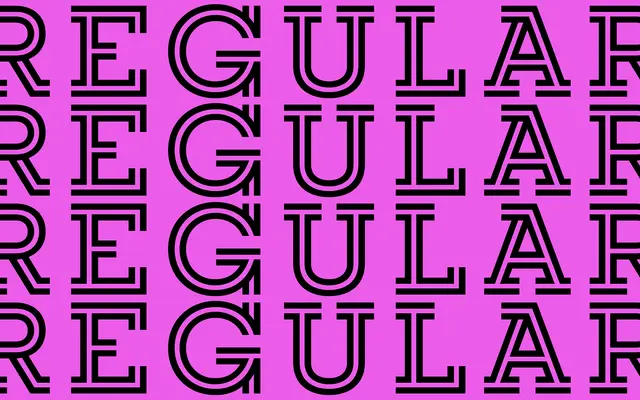
Regular Inline
A2-Type · 2019
A single-weight inline display slab, drawn originally as a custom brand typeface for The Athletic sports news site in 2019.
Cut from the same cloth as A2-Type's Regular Slab, this inline variant strips the family back to one Bold weight and adds an inline stroke treatment suited to large headline settings. It was created as a bespoke brand typeface for The Athletic, art directed by Gretel Design and Strategy Studio in Brooklyn. Its application is narrow: editorial display, sports branding and signage where the inline detail can read clearly at scale.
Derived from Regular Slab, this is a display slab serif with inline stroke detailing, designed for headline use. The inline treatment and slab serifs place it firmly in the display subcategory.